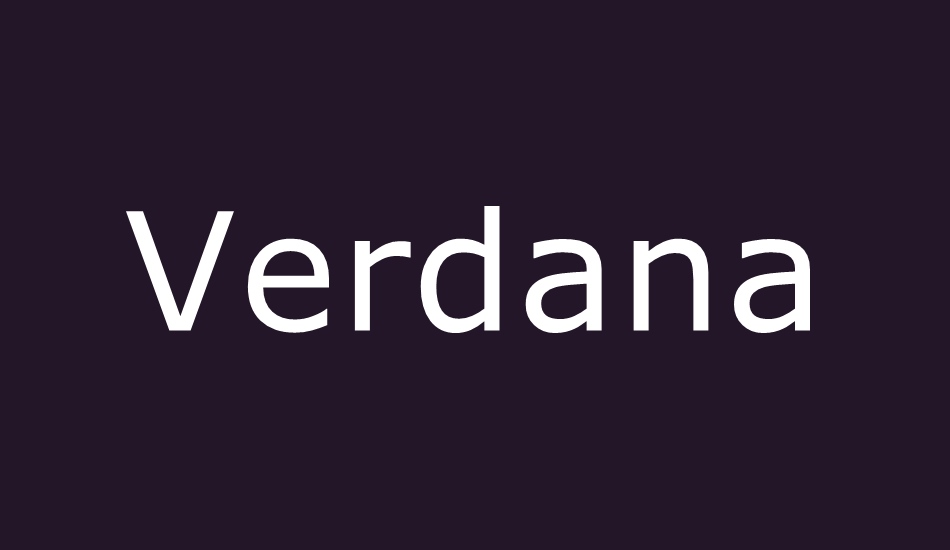
Verdana Font is perfect for web interface design, digital accessibility projects, corporate website layouts, professional presentation materials, educational software interfaces, healthcare system communications, government document designs, user-friendly application displays, clear signage systems, and universally readable marketing communications.
Verdana Font is exciting because it represents the pinnacle of digital readability with its expertly engineered letterforms specifically crafted for screen display and optimized for maximum clarity across all digital platforms and accessibility needs. Its scientifically precise character design reflects both the meticulous research into human vision and reading comprehension that guided its creation and the democratic principle that information should be accessible to everyone regardless of visual ability, making it perfect for brands prioritizing inclusive communication and universal accessibility.
Verdana Font family includes regular, italic, bold, and bold italic weights, along with optimized character spacing, enhanced readability features, and accessibility-focused design elements. The font family also features comprehensive Unicode support, web-safe rendering, and cross-platform compatibility that enhance its digital versatility and professional reliability.
This scientifically optimized typeface represents the gold standard of digital typography and accessibility design. Verdana Font Free Download allows designers to experience its exceptional readability before making a commercial commitment. The font's ability to convey both professional credibility and inclusive accessibility makes it ideal for organizations, educational institutions, and technology companies prioritizing clear communication and universal design principles.
Whether you're developing accessible website identities, creating inclusive digital materials, or designing user-friendly interface communications, Verdana Font brings an unmistakable sense of digital clarity and professional reliability to every project. Its accessible character and universal design heritage create powerful connections that ensure your message reaches all audiences with exceptional clarity and professional credibility.
The font's versatility excels in digital and professional environments where readability and accessibility are non-negotiable. Its scientifically proven character makes it particularly effective for healthcare organizations, educational institutions, government agencies, and technology companies seeking to establish trustworthy relationships with diverse audiences who require clear, accessible communication and professional reliability.
For designers working on projects requiring genuine accessibility and digital clarity, Verdana Font provides an exceptional solution. Its scientifically optimized presence and comprehensive accessibility features offer the tools needed for creating truly inclusive communications, while its professional reliability ensures your designs achieve maximum readability and universal accessibility across all digital platforms and user needs.